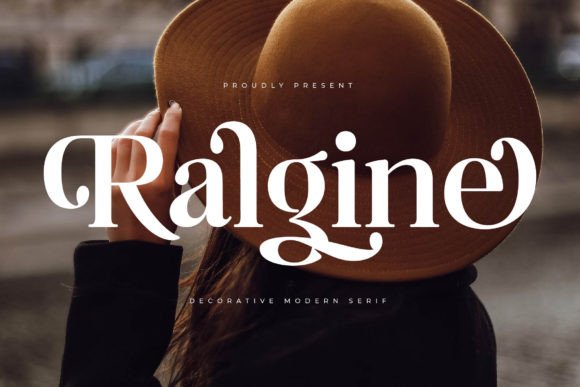
Ralgine Font: The Epitome of Luxurious Serif Typography
In the realm of typography, few fonts manage to convey the essence of luxury and sophistication as effectively as Ralgine. This stunning serif font is designed to evoke a sense of grandeur, with its stately serifs and intricate details that exude refinement and elegance. Ralgine is more than just a font; it’s a statement piece that can elevate your designs to new heights of opulence and style.
The Design Philosophy Behind Ralgine
Ralgine’s design is rooted in the principles of classic serif typography, but with a modern twist that sets it apart from more traditional fonts. Its creator aimed to craft a font that would not only pay homage to the rich heritage of serif typography but also infuse it with a fresh sense of luxury and sophistication. The result is a font that feels both timeless and contemporary, capable of adding a touch of elegance to any design.
One of the defining features of Ralgine is its stately serifs, which are designed to evoke a sense of grandeur and refinement. These serifs, along with the font’s intricate details, contribute to its luxurious feel, making it an ideal choice for high-end branding, editorial design, and any project that demands a touch of sophistication.
Key Features of Ralgine Font
- Luxurious Serif Design: Ralgine’s serif design is crafted to exude luxury and sophistication, making it perfect for high-end designs.
- Intricate Details: The font’s intricate details add to its refined aesthetics, setting it apart from more basic serif fonts.
- Timeless Elegance: Despite being designed with modern tastes in mind, Ralgine possesses a timeless quality that ensures it will remain stylish for years to come.
- Versatility: Ralgine is versatile enough to be used in a variety of design contexts, from branding and advertising to editorial and packaging design.
Applications of Ralgine Font
Ralgine’s luxurious and sophisticated design makes it suitable for a wide range of applications. Here are some of the most effective uses of this stunning font:
Branding and Logo Design:
Ralgine is an excellent choice for luxury brands looking to create a high-end image. Its elegant and refined appearance can help convey a sense of exclusivity and prestige, essential qualities for brands operating in the luxury sector.
Editorial Design:
For editorial projects such as magazines, newspapers, and books, Ralgine can add a touch of sophistication and elegance. Its readability, combined with its luxurious feel, makes it an excellent choice for body text and headlines alike.
Advertising and Marketing:
In advertising and marketing materials, standing out is crucial. Ralgine’s commanding presence and opulent style ensure that any advertisement or promotional material stands out, capturing the audience’s attention and conveying a sense of luxury.
Packaging Design:
For luxury products, packaging is often the first point of contact with potential customers. Ralgine can be used to create stunning packaging that reflects the product’s high quality and luxurious nature.
Why Choose Ralgine Font?
In a world where typography plays a crucial role in design, choosing the right font can make all the difference. Here are some compelling reasons to choose Ralgine for your next project:
- Unique and Distinctive: Ralgine offers a unique blend of traditional serif elements and modern luxury, making it a distinctive choice that can help your designs stand out.
- High Versatility: Its versatility means Ralgine can be used across various design projects, from digital interfaces to print materials.
- Elegance and Sophistication: Ralgine brings an unparalleled level of elegance and sophistication to any design, ensuring your project communicates luxury and refinement.
- Timeless Appeal: With its classic roots and modern execution, Ralgine has a timeless appeal that protects your investment in design, ensuring your work remains stylish and relevant.
Pair with Complementary Fonts:
While Ralgine is stunning on its own, pairing it with complementary fonts can enhance its beauty. Opt for sans-serif fonts for contrast or other serif fonts for a layered look.
Adjust Weight and Size:
Experiment with different weights and sizes of Ralgine to create visual hierarchy and emphasize key points in your design.
Pay Attention to Spacing:
Ensure adequate spacing between letters and lines to maintain readability and allow Ralgine’s intricate details to shine.
Limit Color Palette:
Stick to a limited color palette that complements the luxurious feel of Ralgine. Neutral tones like black, white, and gold can enhance its elegance.
Ralgine font is a masterpiece of modern typography, offering a luxurious and sophisticated aesthetic that can elevate any design. Its stately serifs, intricate details, and timeless elegance make it an ideal choice for designers looking to convey grandeur and refinement. Whether you’re working on a luxury brand, an editorial project, or any design that demands a touch of opulence, Ralgine is sure to impress. By incorporating Ralgine into your typography arsenal, you’re not just choosing a font; you’re embracing a design philosophy that values elegance, sophistication, and the art of beautiful typography.